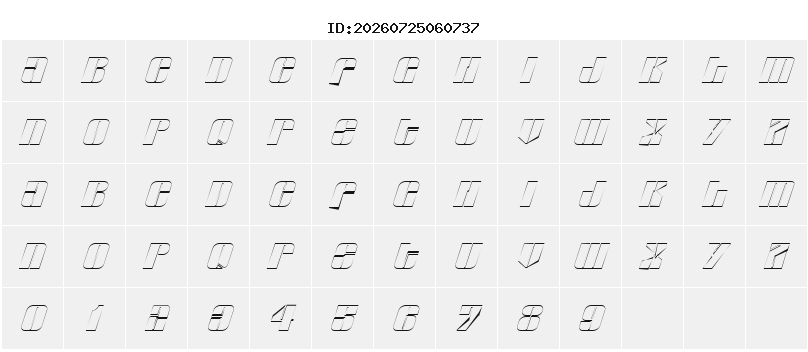
Glyphic Series Outline Preview
• Font Name: Glyphic Series Outline
• Font ID: Altsys Fontographer 3.5 Glyphic Series Outline Italic
• Full Font Name: Glyphic Series Outline Italic
• PostScript Name: GlyphicSeriesOutlineItalic
About Glyphic Series Outline.ttf
Glyphic Series Outline.ttf is a modern, elegant sans-serif font designed for ultimate readability and visual harmony. Perfect for branding, headlines, web design, and print materials.